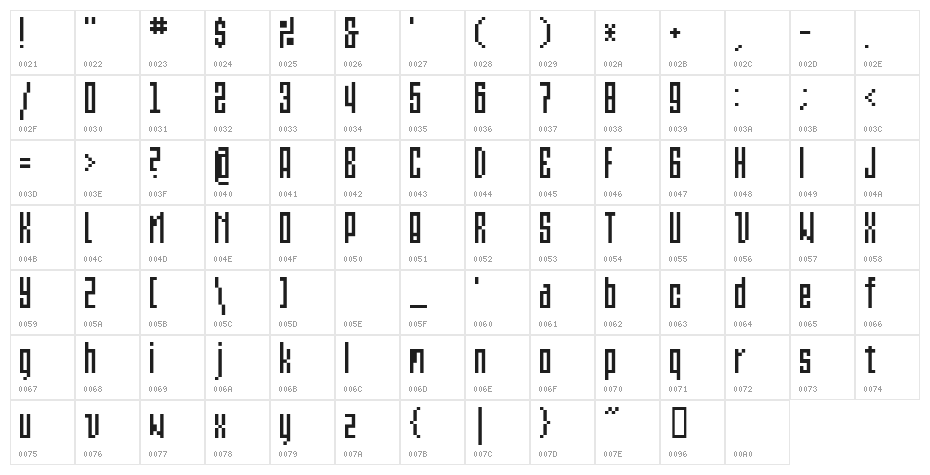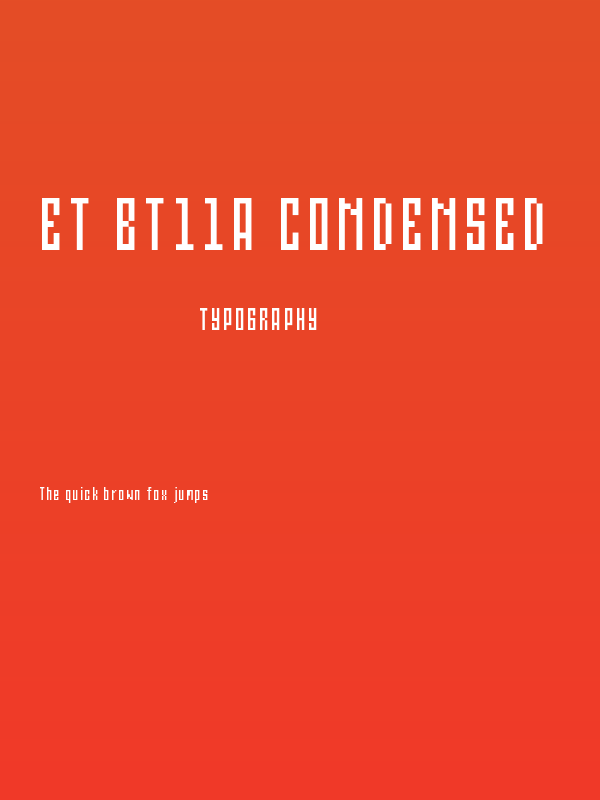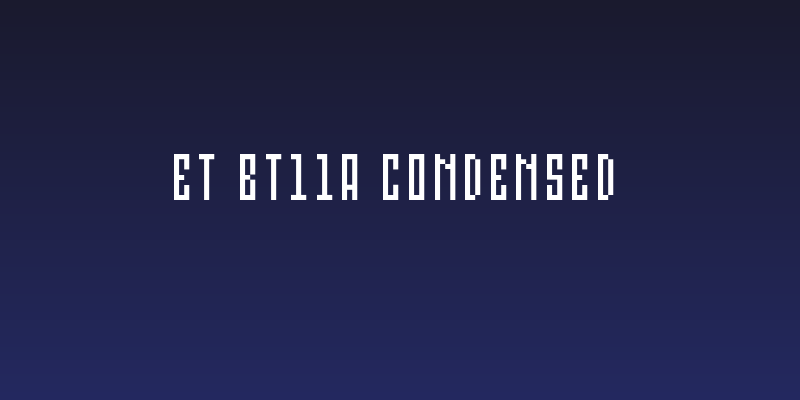
Et Bt11A Condensed Font
Et Bt11A Condensed Description
This font features a condensed, monospaced design with a distinctly modern and digital aesthetic. The characters are uniformly aligned, creating a structured and consistent appearance. Each letter and number is composed of straight lines and right angles, giving it a geometric and technical feel. The uppercase and lowercase letters maintain a similar height, enhancing the uniformity of the typeface. The numerals and special characters are designed to match the overall style, ensuring a cohesive look across all glyphs. This font is ideal for projects that require a clean, minimalist, and contemporary look.
Use CaseLogos, Digital displays, Coding interfaces
Proposed ProjectsSuitable for tech-related branding, coding interfaces, digital displays, and minimalist design projects.